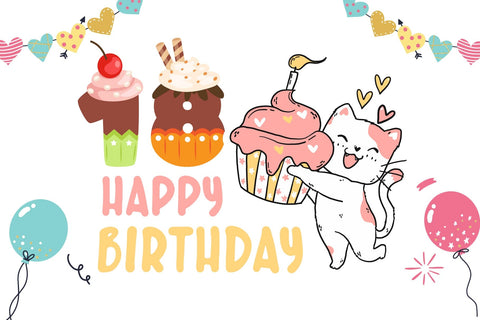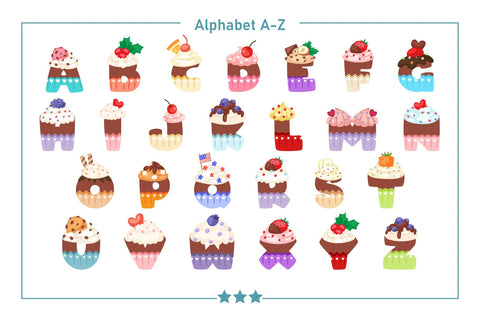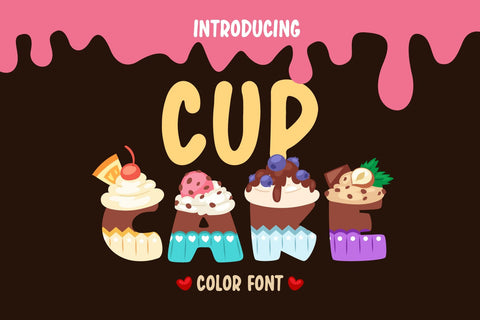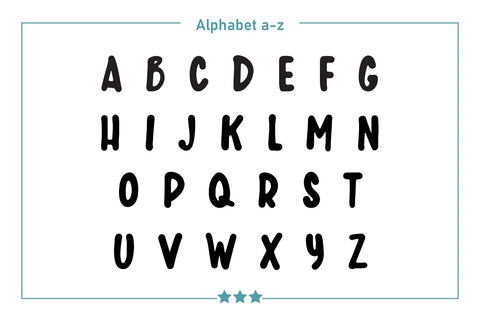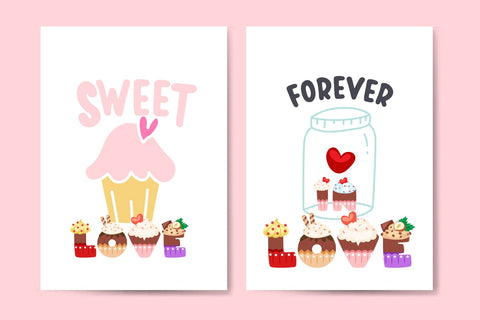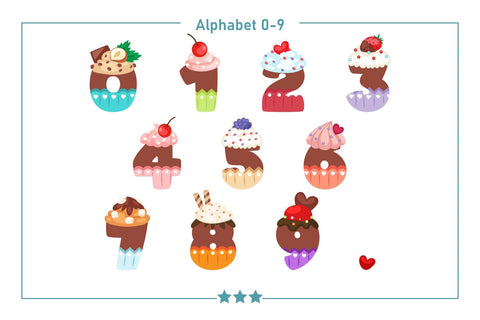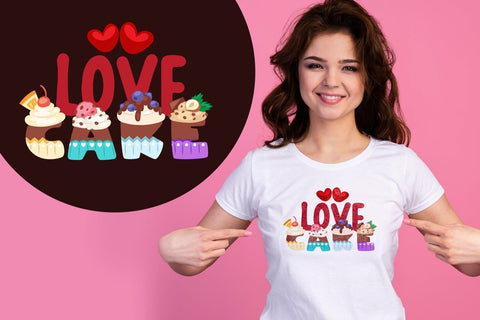
Cupcake Color fonts
Cupcake Fonts are cute and fun color fonts with cupcake-style design fonts and cute and bright handwritten fonts. Fall in love with its authentic feel and use it to create gorgeous invitations, beautiful stationary art, eye-catching social media posts, and cute greeting cards. Add this beautiful display font to each of your creative ideas, and notice how it makes them stand out.